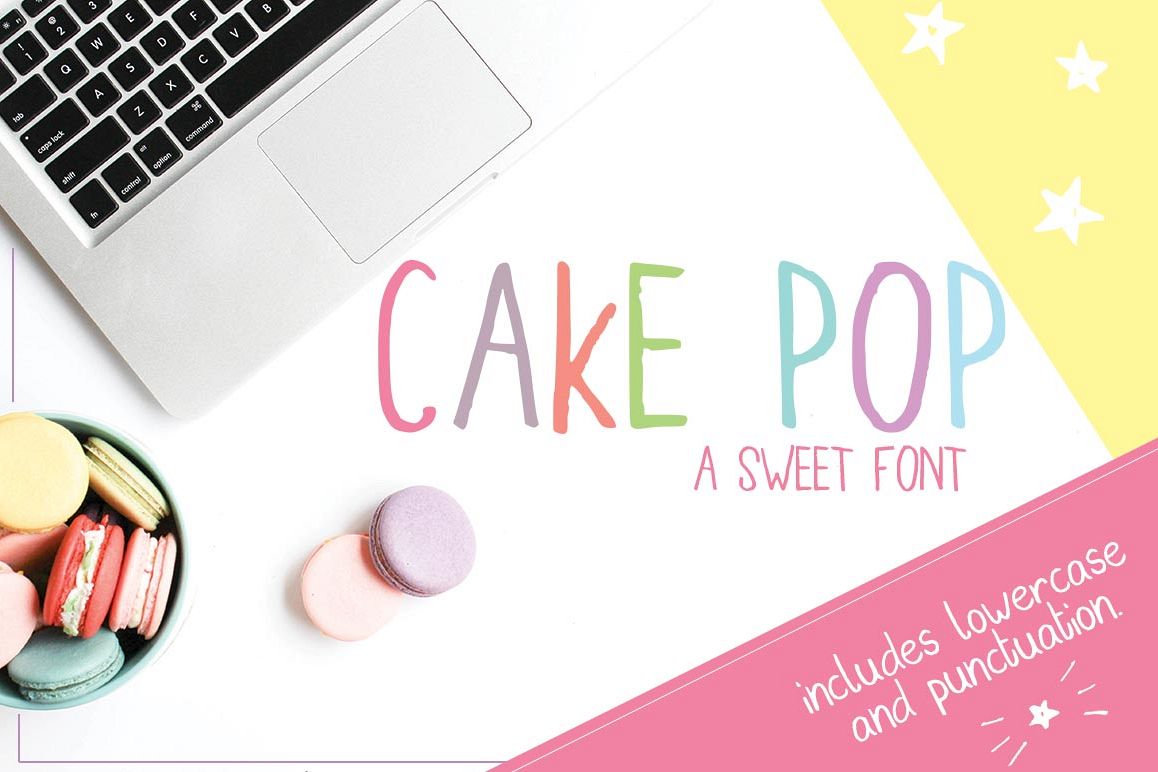
Cake Pop Font
A fun and cutesy font that's perfect for your sweet tooth! :) Useful for headers, large blocks of text and adding a hand-drawn vibe to your designs.